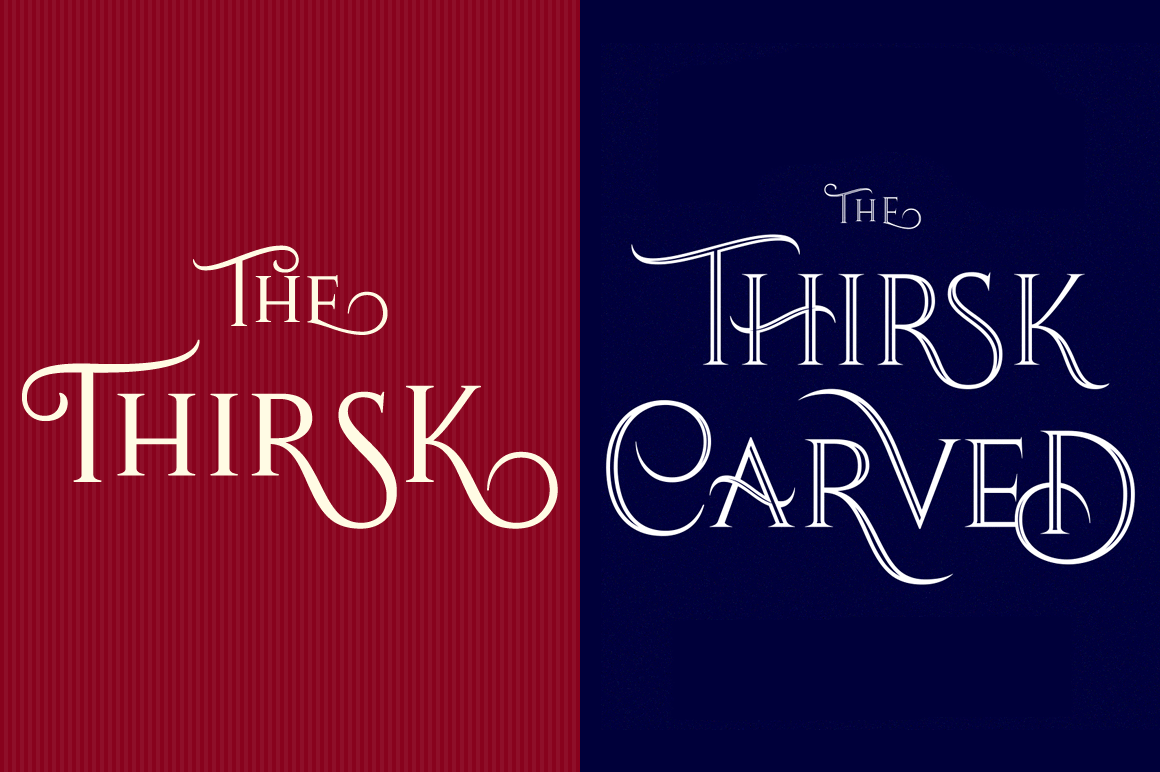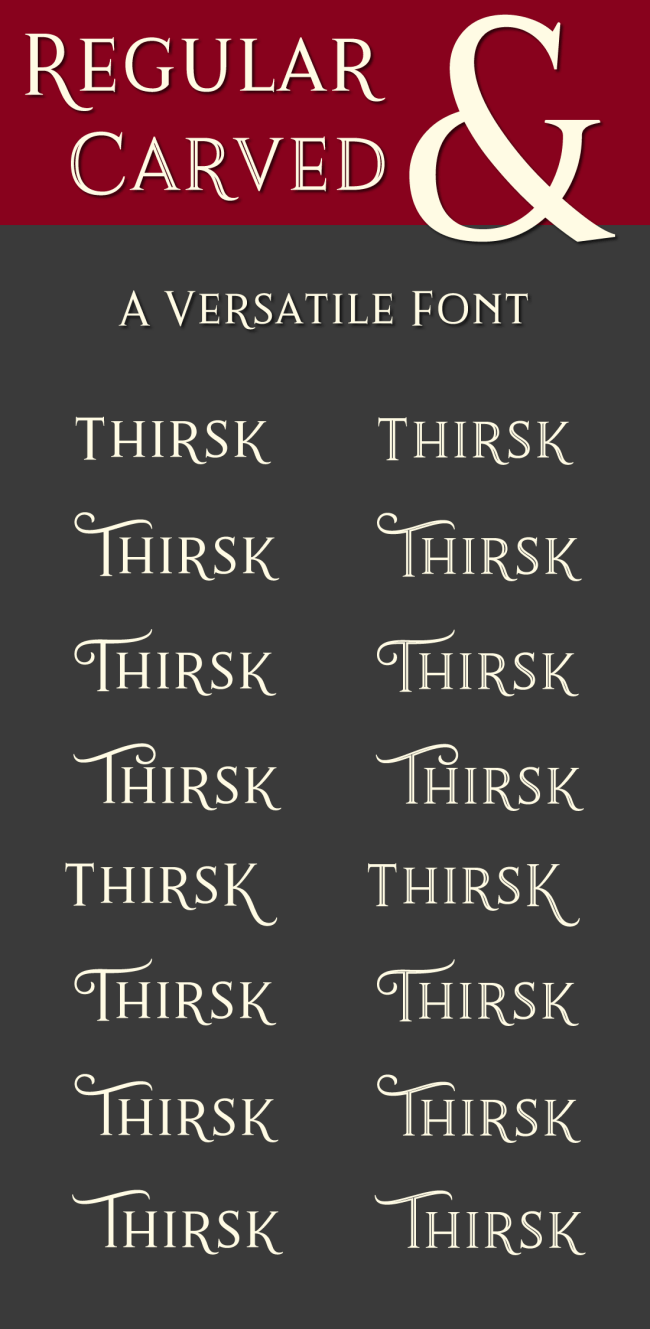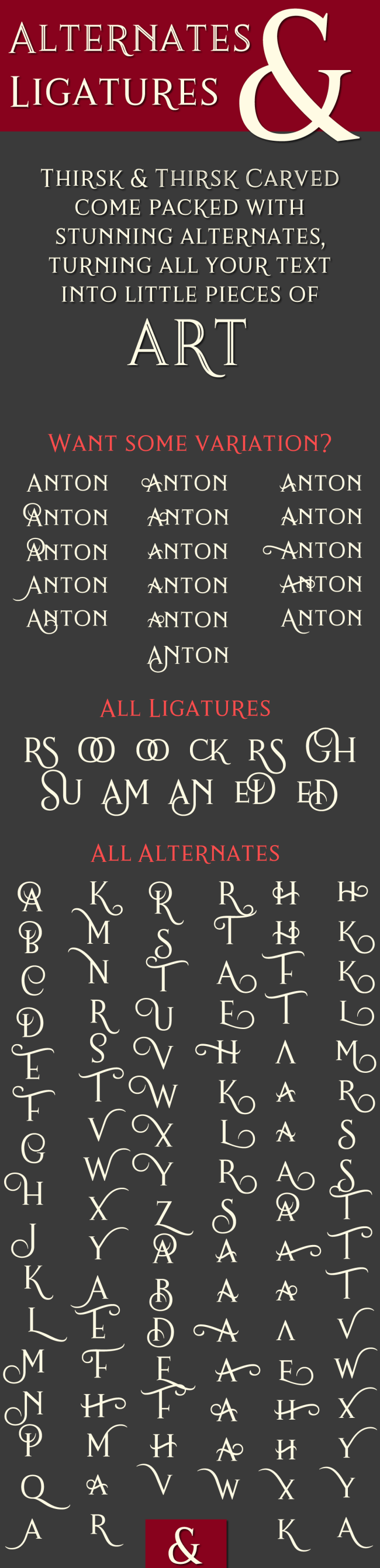
Thirsk is a unique decorative, vintage looking serif typeface. The Thirsk font is packed with alternates, making it a very versatile type that can be used in many different projects. With 2 unique fonts, each available in regular and italics styles, this collection offers up 4 fabulous fonts in one. Mix and match for the ultimate in flexibility.
- 2 styles – Regular and Italics.
- Typeface features 2 versatile fonts – Thirsk and Thirsk Carved.
- OpenType Features – create variation with Ligatures, Alternates, Swashes and more.
- Perfect Font Family for book titles, menus, signs, posters, T-shirts, mugs, totes and loads more printable projects.